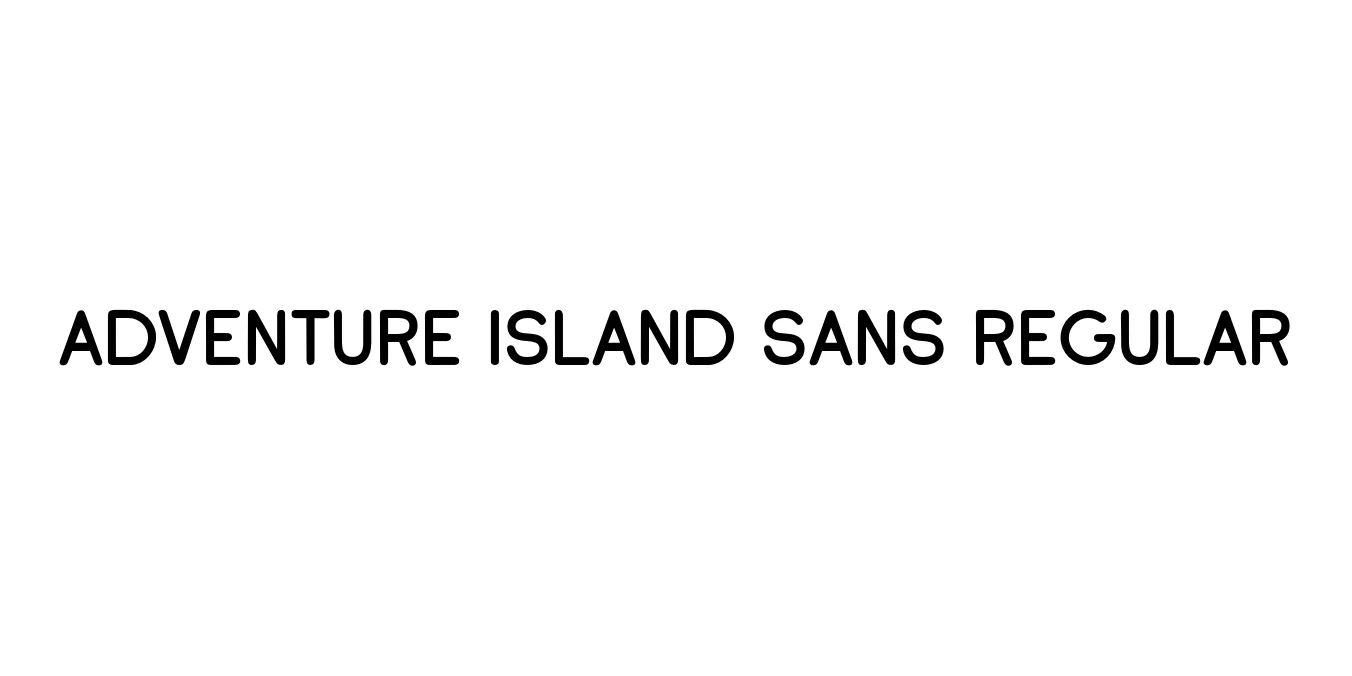
Adventure Island Sans Regular
Designed by Prasidi
Adventure Island Sans Regular is a versatile and masterfully crafted sans-serif typeface that draws deep inspiration from the vintage aesthetic of mid-century outdoor gear and exploration journals. Its clean lines and slightly rounded edges offer a welcoming, organic feel that bridges the gap between modern minimalism and rustic charm. This font is specifically designed to convey a sense of reliability and timelessness, making it an excellent choice for projects that aim to evoke the spirit of the great outdoors and rugged exploration.
The versatility of Adventure Island Sans Regular lies in its balanced proportions and exceptional legibility across various mediums, from high-resolution digital displays to textured print materials. Whether used for bold headlines or subtle subtext, it maintains a strong visual presence without overwhelming the viewer. It is frequently paired with hand-drawn script fonts to create dynamic, high-contrast layouts, proving itself to be an essential tool for designers working in branding, packaging, and digital media who require a touch of adventurous personality.
Adventure Island Sans Regular Best Uses
Perfect for creating rugged, outdoorsy brand identities and heritage logos.
Ideal for organic products, craft beer labels, and outdoor apparel tags.
Great for travel-themed Instagram posts and atmospheric inspirational quotes.
Works exceptionally well for headers and navigation menus on adventure-based websites.